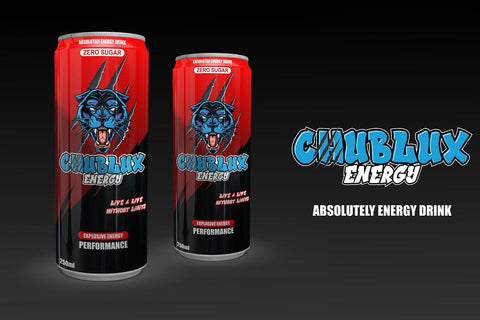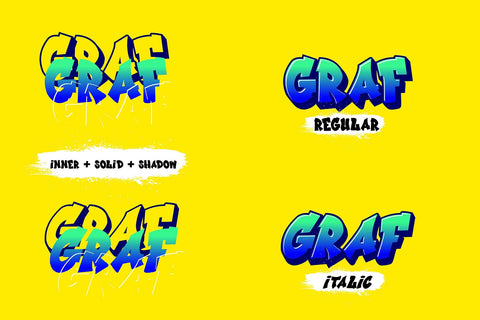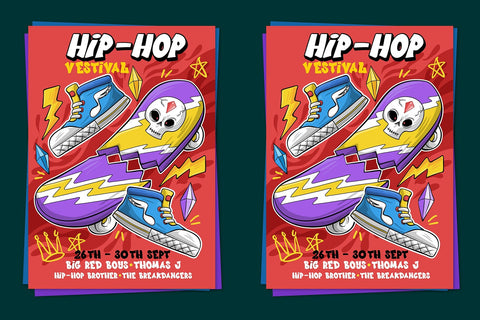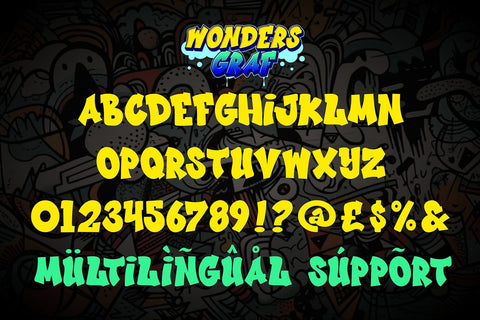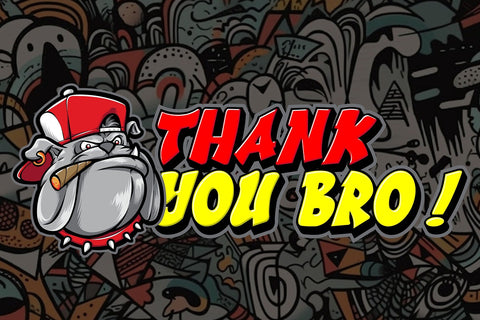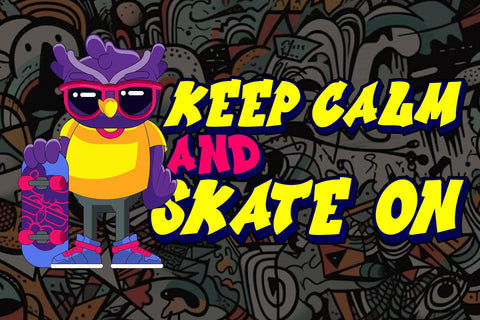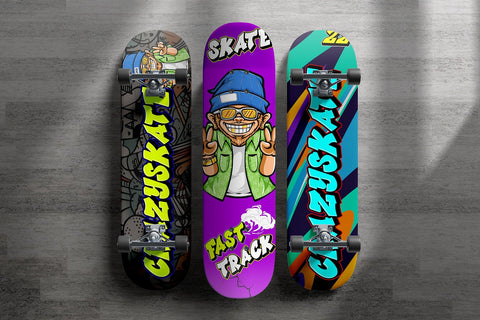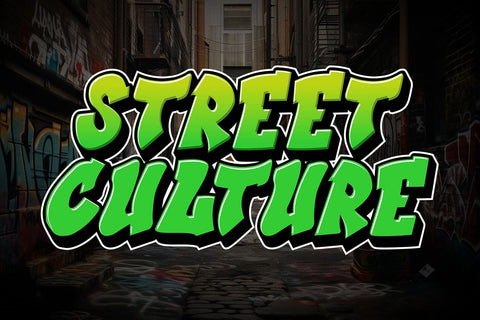
Wonders Graff - 3d Layered Graffiti Font
"Wonder Graff" is a graffiti font that features 3 different layers and multiple font styles. With these layers and font style variations, you can create intriguing effects in your design. The use of layers and font styles allows you to achieve more complex and creative looks.
- Graffiti Characters looks